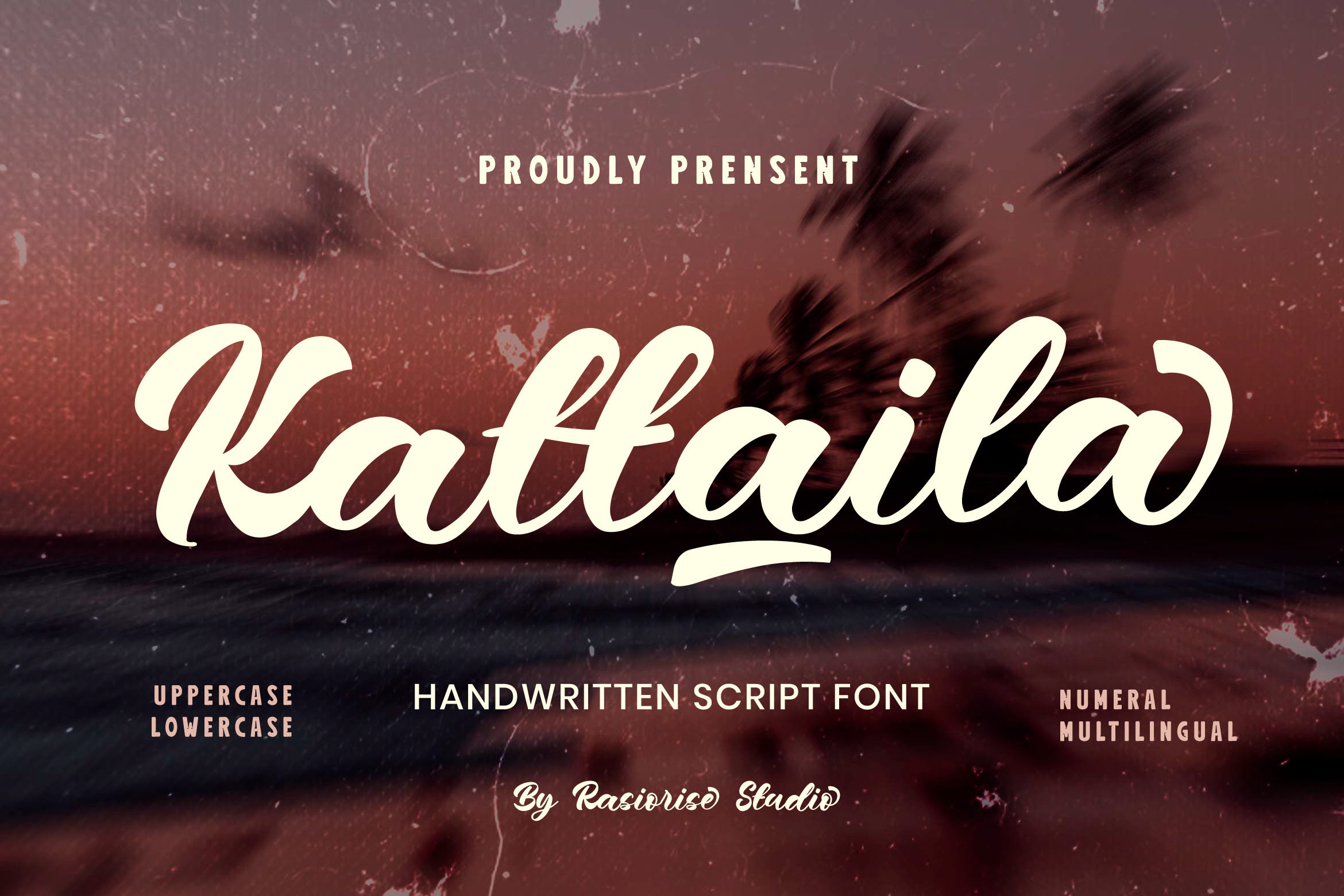
Kattaila a Handwritten Script Font
Hello Everyone! Kattaila has been released for those of you who are looking for a Handwritten Script font, The font is inspired by the script hand drawing Free Style with a few combine to turn them into a bit of a signature style. Unleash your creativity with Kattaila - Handwritten Script Font, perfect for adding a playful touch to any project!
Kattaila Font very suitable for Logotype, Book Cover, Weeding Invitation, Gift Card, Gretting Card, Poster, Merchandise, Packaging Label, Badge/Emblem Logo and much more.